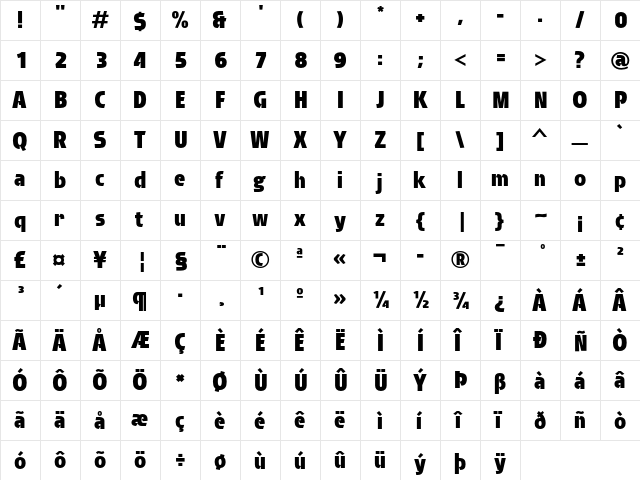
Brda LT Std Extra Bold
| Foundry | Linotype GmbH |
| Designer | Franciszek Otto |
Design Context for Brda LT Std Typeface
Brda LT Std offers clean, dependable letterforms without strong stylistic allegiance, making it a practical choice for designers who need flexibility. The heavy weight commands attention and anchors typographic hierarchies.